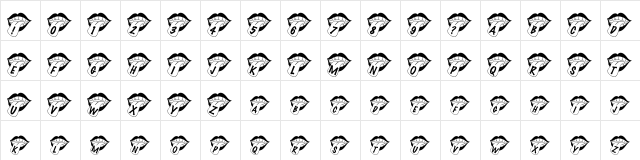
RMMouthy Regular
Design Context for RMMouthy Typeface
RMMouthy is a composed and adaptable typeface that performs quietly and consistently across a wide range of design contexts.